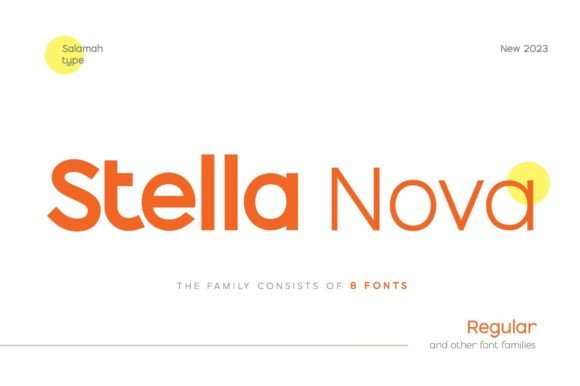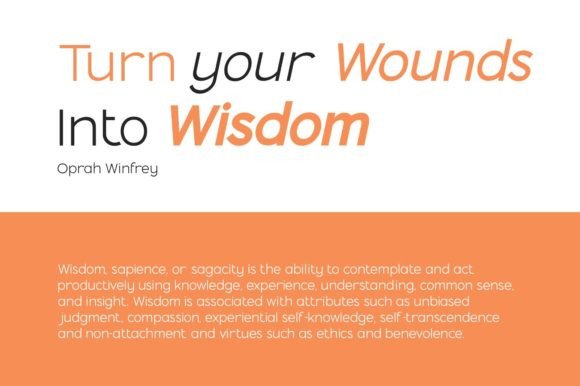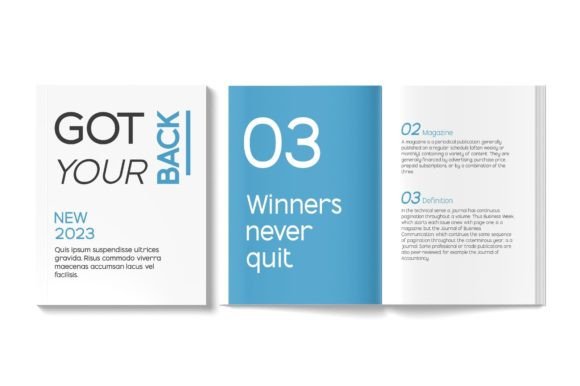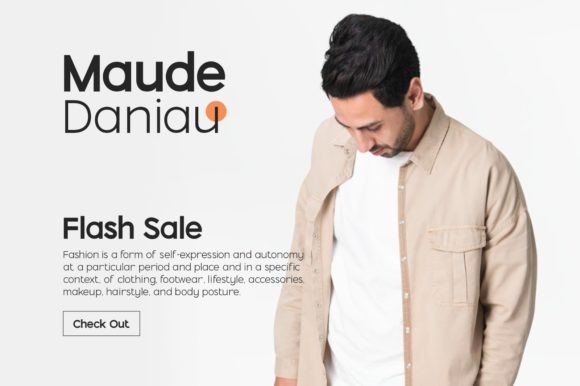
Stella Nova Font
About the Stella Nova Font
Add a touch of class to your work with the Stella Nova Font, a truly exceptional typeface. Stella Nova is a clean, exquisite, and modern sans-serif font that is the epitome of simplicity and elegance. Its minimalist design and precise geometry make it perfect for high-end branding, editorial projects, and modern websites. With its timeless style, Stella Nova is the perfect choice for any project that requires a touch of sophistication.
Stella Nova Font Usage Examples
Stella Nova Font Example